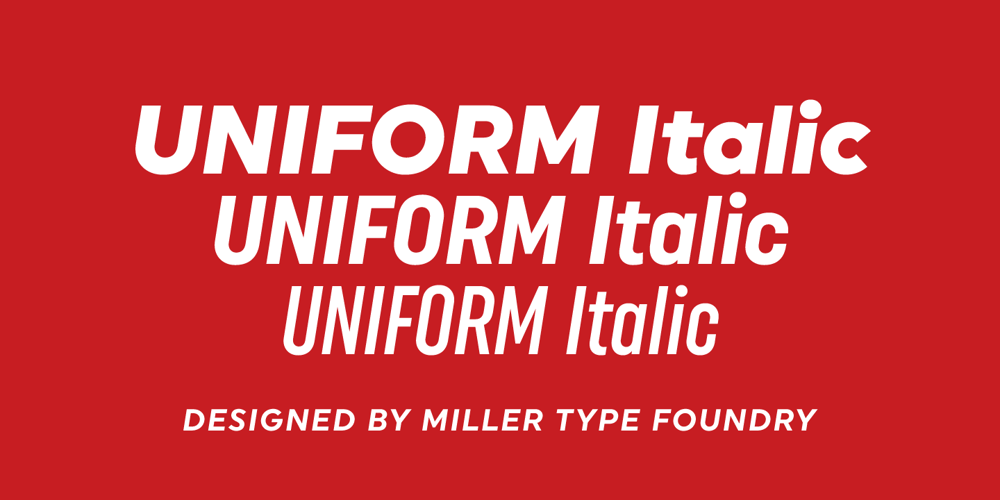
Uniform Italic Font Family was designed by Richard Miller and published by Miller Type Foundry. Uniform Italic contains 18 styles and family package options. Now Uniform comes in Italics! Uniform is a multi-width geometric type family designed around the circle. The O of the Regular width is based on a circle, the O of the Condensed width is based on 1.5 circles stacked (with straight sides) and the O of the Extra Condensed width is based on two circles stacked with straight sides as well, and all other characters are derived from this initial concept. This unique idea creates a remarkably fresh type family that bridges the gap between circular geometric typefaces and condensed straight-sided typefaces. Uniform also includes many opentype features like Old Style Figures, Tabular Lining Figures, Alternate characters, Ligatures and more. Uniform was first drawn starting with the Black weight. This careful process allows each character to look consistent and balanced through all weights. As a result, the typeface does not ‘break down’ or lose its form in the boldest weights like many typefaces do. The three widths of Uniform Italic make an ideal type family for a host of various uses. From branding to web design, book covers to signage, Uniform is a very versatile solution to complex typographic needs.